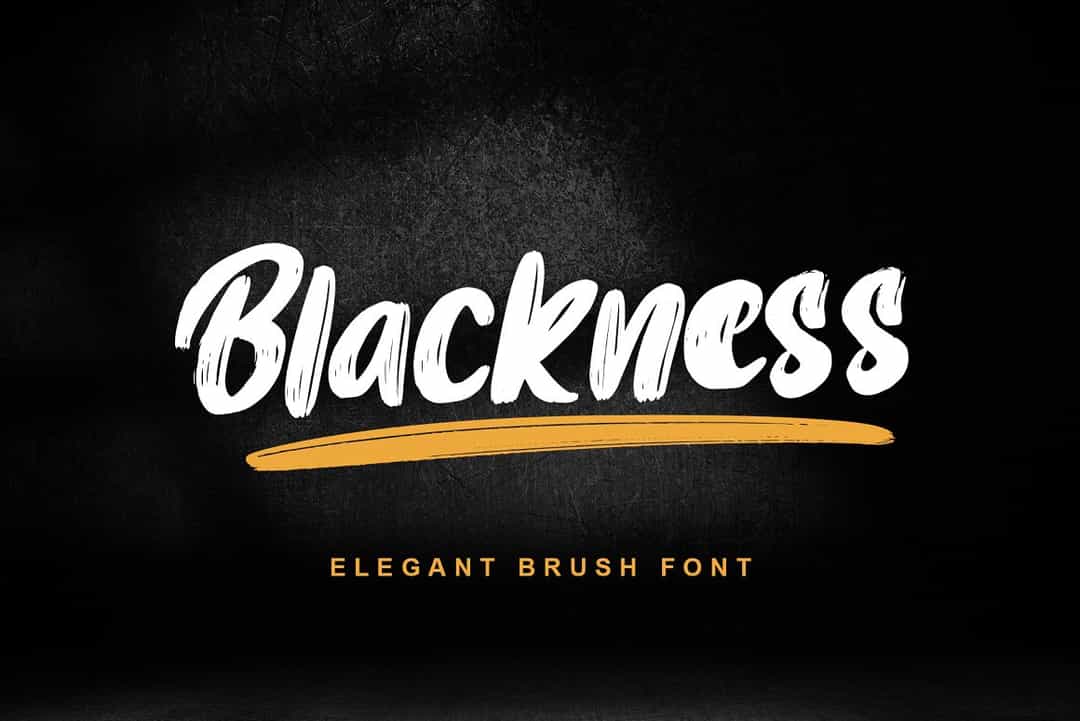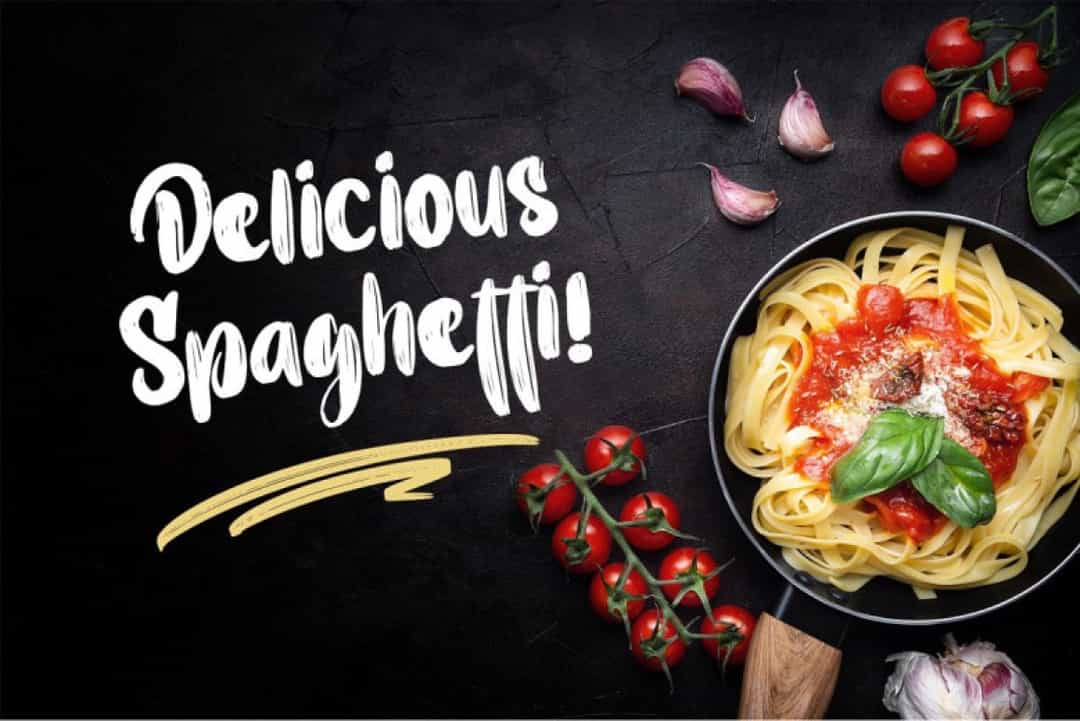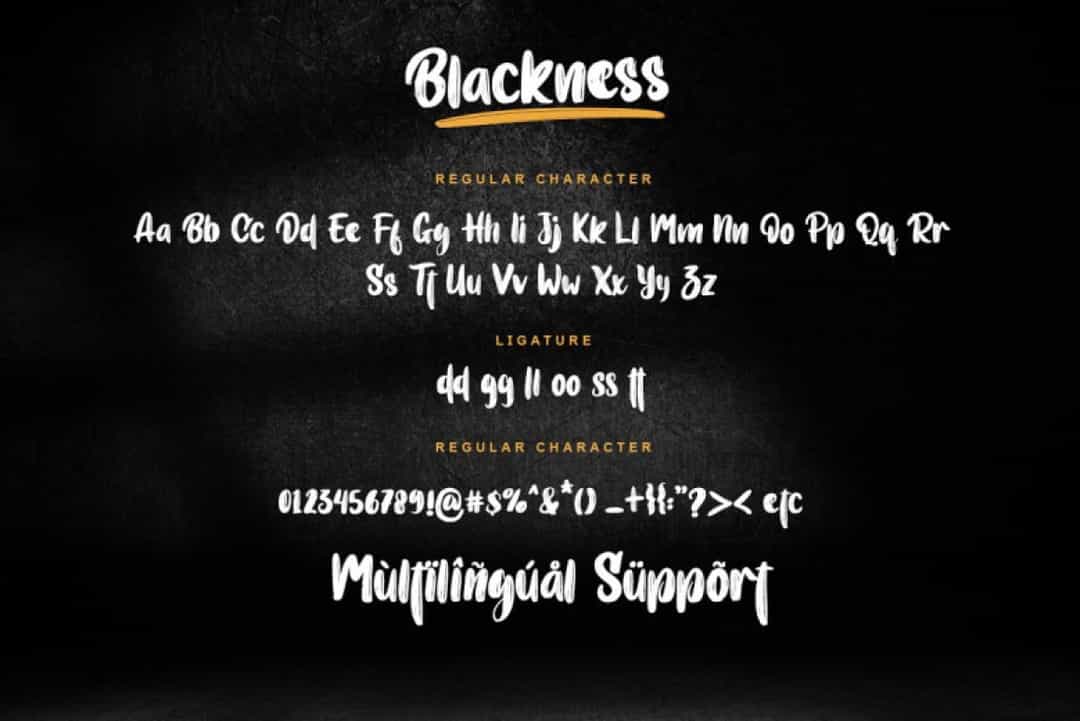
Blackness is a distinctive unique brush script font with its own look and feel, as well as being legible enough for multiple applications including headlines titles, headings logos, branding, posters, books etc.